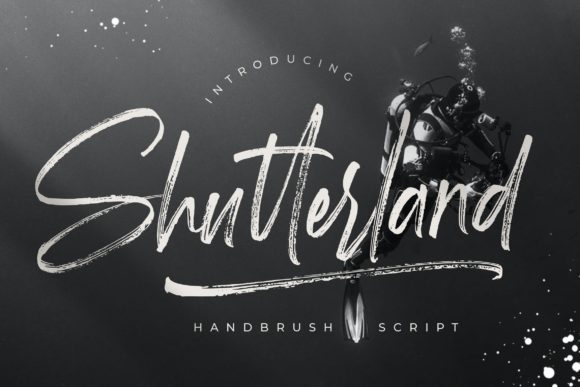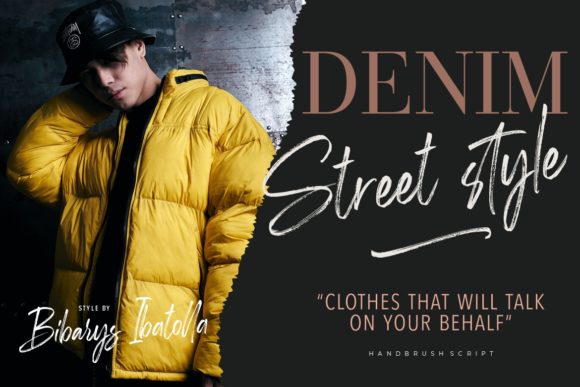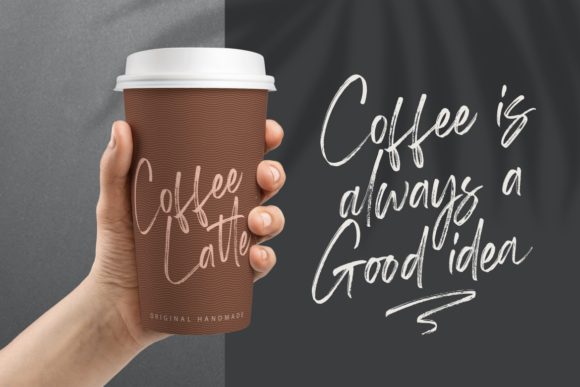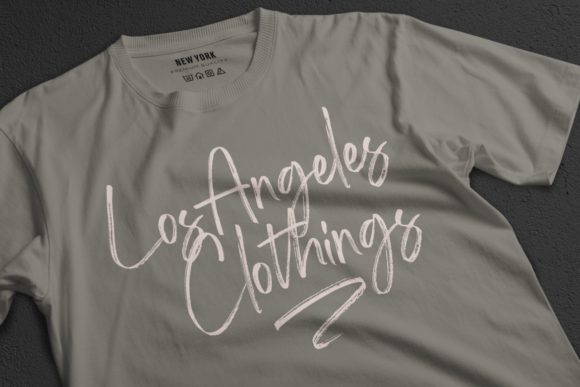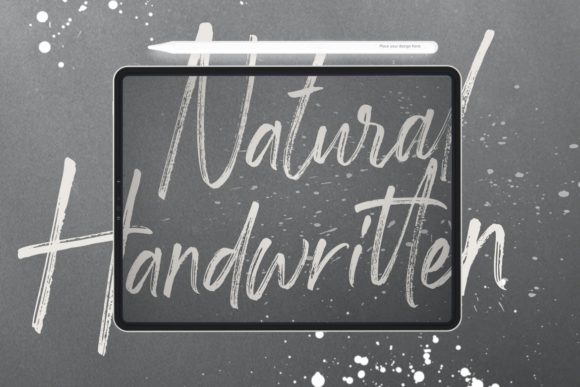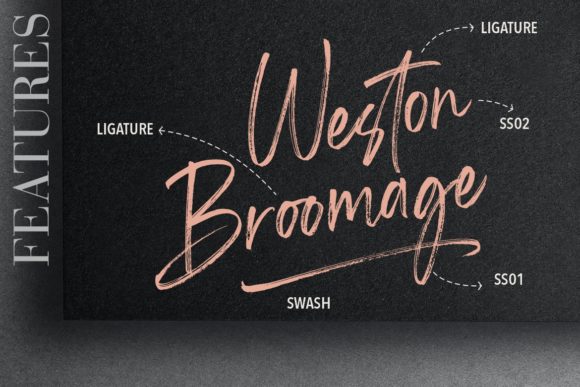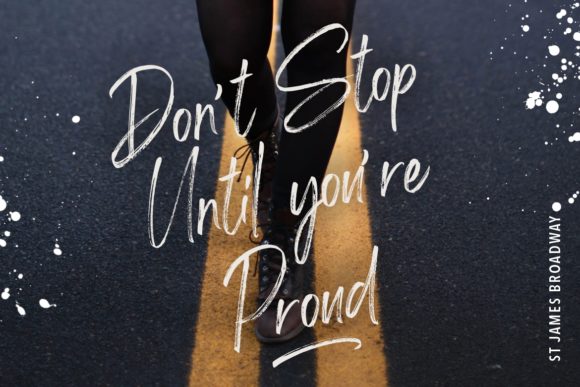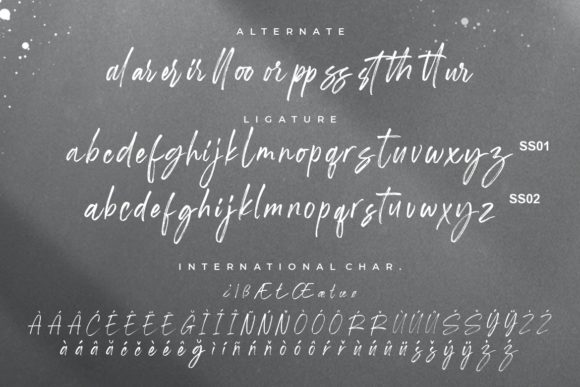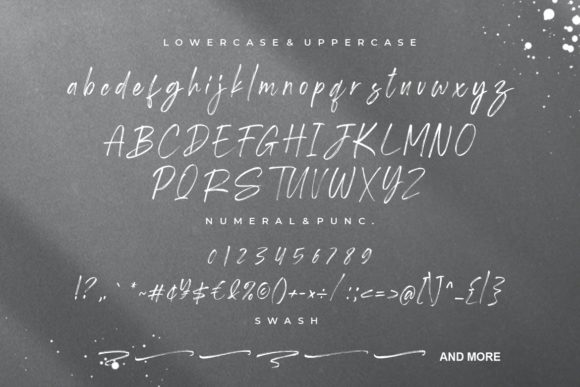
Shutterland Font
About Shutterland Font
Shutterland is a natural and stylish hand brushed handwritten font that brings a unique and authentic touch to your designs. With its stylish scratch, it adds a sense of creativity and craftsmanship to various projects. From branding projects and logos to wedding designs and social media posts, Shutterland is a versatile font that can elevate your creative endeavors.
The organic and handcrafted nature of Shutterland gives it a distinctive and personalized look. The brush strokes capture the essence of hand lettering, adding an element of authenticity and charm to your designs. Whether you’re creating a logo for a brand or designing wedding invitations, Shutterland adds a touch of artistic flair.
One of the notable features of Shutterland is its PUA encoding, which allows you to access all the glyphs and swashes with ease. This means you have full control over the various decorative elements and alternate characters that the font offers. You can effortlessly customize and embellish your designs, making them truly unique and tailored to your vision.
Shutterland is suitable for a wide range of design applications. It works well in branding projects, adding a handmade and artistic vibe to your logo or packaging designs. It’s also perfect for social media posts, where you can create eye-catching and engaging visuals. Whether you’re designing advertisements, product packaging, or any other creative project, Shutterland brings a natural and stylish aesthetic.
In summary, Shutterland is a natural hand brushed handwritten font with a stylish scratch. Its versatility and PUA encoding make it suitable for a wide range of design projects, including branding, logos, wedding designs, social media posts, advertisements, and more. Add a touch of creativity and authenticity to your designs with Shutterland’s unique and handcrafted style.